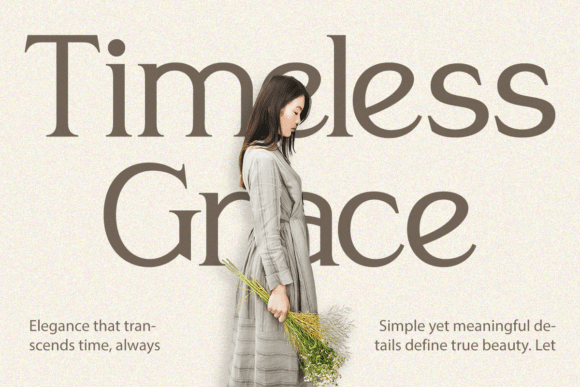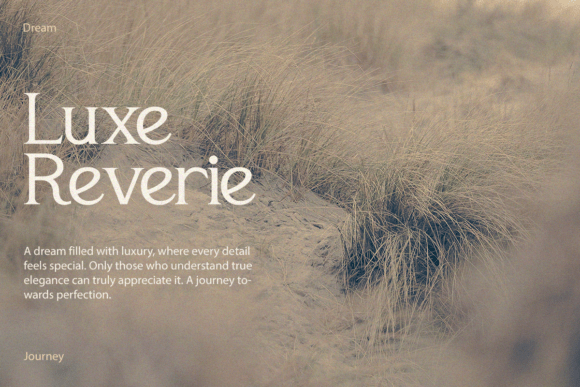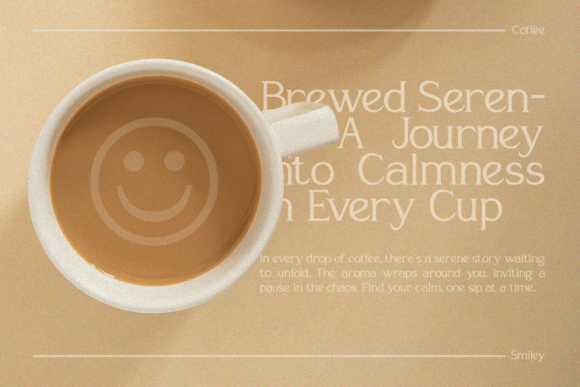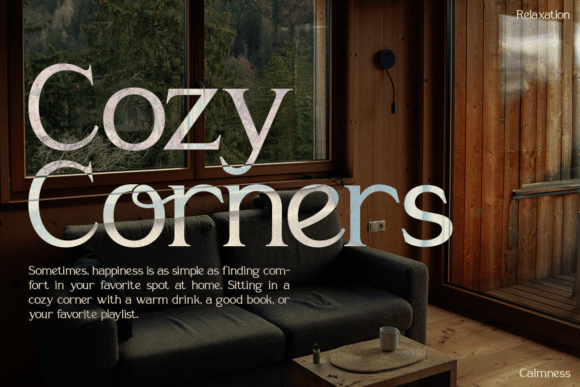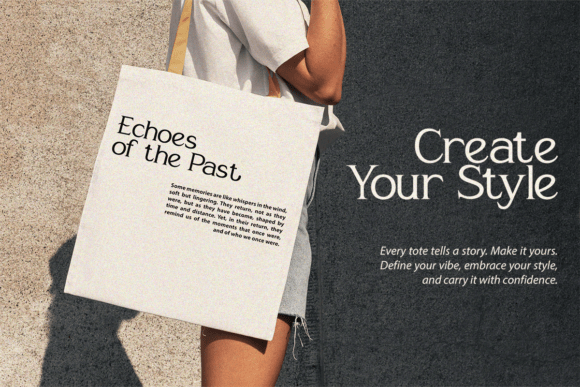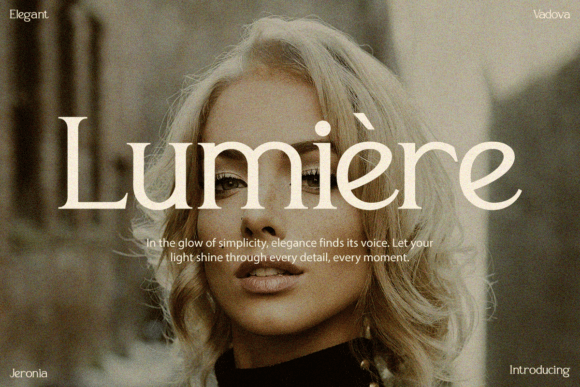
Introducing Feronia Font: Elevate Your Design with Elegance and Sophistication
In the world of typography, a font can make or break the visual identity of a brand, product, or editorial content. For designers and crafters seeking a typeface that embodies both elegance and simplicity, Feronia Font stands out as a premier choice. This article delves into the characteristics, benefits, and applications of Feronia, an elegant serif font designed to enhance modern visual storytelling.
The Essence of Feronia Font
Feronia is an elegant serif font meticulously crafted for modern visual storytelling, distinguished by its refined, minimalist aesthetic. Its design strikes a perfect balance between simplicity and elegance, making it an ideal choice for projects where design clarity and style are paramount. Whether you’re working on branding, editorial layouts, or sophisticated product packaging, Feronia brings a level of sophistication that elevates your work.
Timeless Structure and Delicate Curves
One of the defining features of Feronia is its timeless structure combined with delicate curves. This blend gives Feronia a versatile appeal, capable of adapting to various design needs. The serif elements provide a classic touch, while the minimalist approach ensures the font remains uncluttered and highly legible. This versatility makes Feronia a valuable asset for designers who aim to create visually compelling content.
Applications of Feronia Font
The applications of Feronia are vast and varied. Here are some areas where Feronia truly shines:
- Branding: Feronia’s elegant and refined aesthetic makes it perfect for brands looking to establish a sophisticated and modern visual identity.
- Editorial Layouts: For magazines, journals, and digital publications, Feronia offers a level of readability and style that enhances the reader’s experience.
- Product Packaging: When it comes to packaging, especially for luxury goods, Feronia adds a touch of elegance that can make products stand out on store shelves.
Why Choose Feronia?
Choosing a font for a project involves considering several factors, including readability, uniqueness, and how well it aligns with the project’s overall aesthetic. Feronia checks all these boxes and more:
- Readability: Feronia’s clear and simple structure ensures that it remains highly legible, even at smaller sizes.
- Uniqueness: While rooted in classic serif design, Feronia has a distinctiveness that sets it apart from more traditional typefaces.
- Aesthetic Alignment: Its minimalist yet elegant design makes it easy to integrate into a wide range of projects, from modern digital content to traditional print materials.
Designing with Feronia
When incorporating Feronia into your designs, consider the following tips to maximize its impact:
- Pair with Complementary Fonts: While Feronia is versatile on its own, pairing it with sans-serif fonts can create visually appealing contrasts.
- Adjust Weight for Emphasis: Feronia’s range of weights allows for flexible design choices, from subtle text to headlines that demand attention.
- Consider Color and Spacing: The elegance of Feronia can be further enhanced by thoughtful color choices and careful attention to spacing, ensuring a clean and sophisticated look.
Feronia Font offers a unique blend of elegance, simplicity, and versatility, making it an exceptional choice for designers and crafters looking to elevate their projects. Whether you’re aiming to create a strong brand identity, design an engaging editorial layout, or craft compelling product packaging, Feronia provides the tools to achieve a sophisticated and stylish outcome. With its timeless structure, delicate curves, and refined aesthetic, Feronia is poised to become a go-to font for modern visual storytelling.
Embrace Feronia in your next project and experience firsthand how this elegant serif font can transform your designs into visually stunning and memorable pieces.